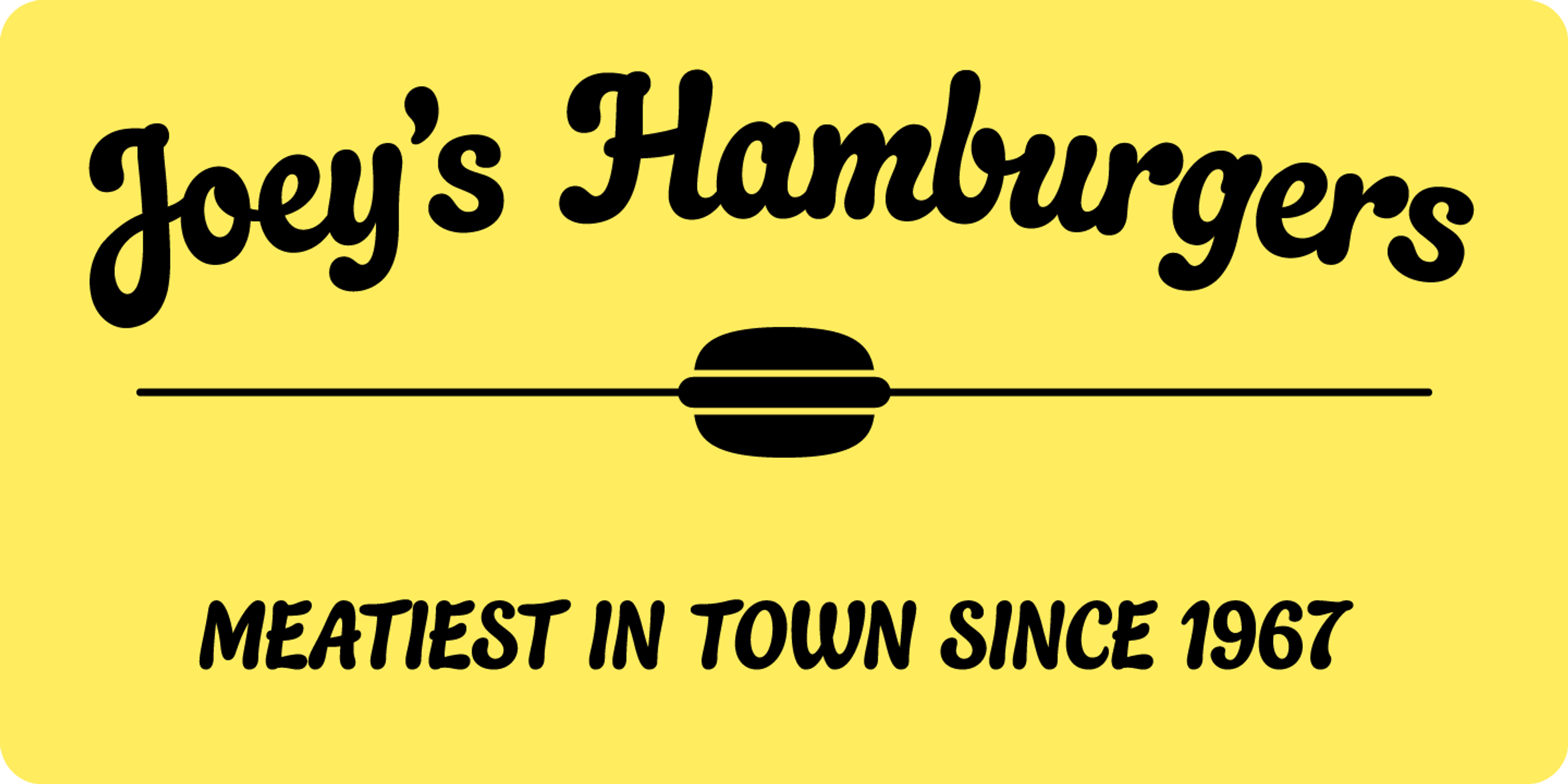
Quayside Font
Quayside Regular
Quayside
Quayside is a deliciously thick and bulbous baseball script. Its rounded forms and connected strokes give it a playful, expressive personality that doesn’t take itself too seriously. Quayside is a versatile typeface, too! What’s the desired mood? It will feel right at home on retro packaging, modern book covers, fun event posters, and fairly serious advertisements. With its bouncy rhythm and smooth curves, Quayside delivers bold typographic charm in every curve and flourish.
- Common Ligatures
- Old Style Numerals
- Swashes